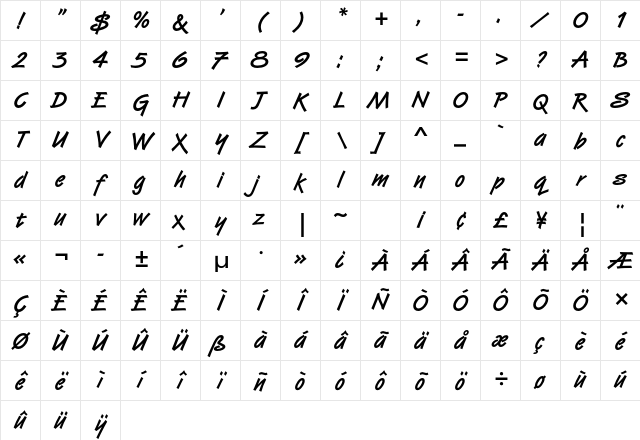
Van Dijk Std Bold
Designer: Peter O'Donnell
Design Context for Van Dijk Std
Van Dijk Std is a composed and adaptable typeface that performs quietly and consistently across a wide range of design contexts. Its bold stroke weight gives it real presence on the page.